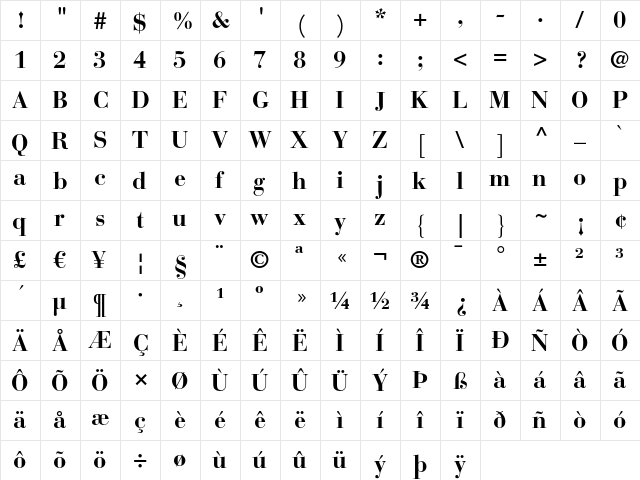
Bauer Bodoni LT Regular
Design Context for Bauer Bodoni LT Typeface
Bauer Bodoni LT is a composed and adaptable typeface that performs quietly and consistently across a wide range of design contexts. Its slender proportions lend an understated elegance to any composition.
Pro Tip: Use Bauer Bodoni LT in both headline and body roles to test its range before committing to a single application.